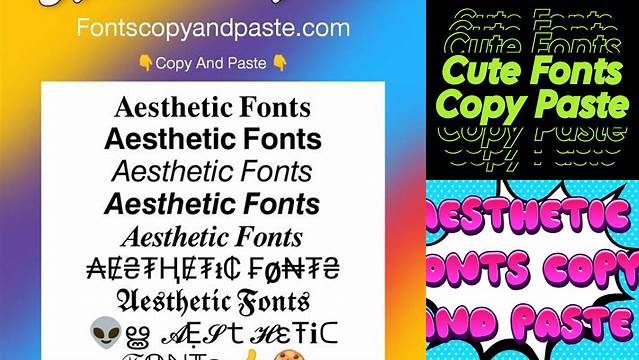
Cute Aesthetic Fonts: Copy & Paste With Color!
Hey guys! Ever wanted to spice up your social media, website, or just your notes with some super cute aesthetic fonts? You're in the right place! We’re diving deep into the world of adorable fonts that you can easily copy and paste, and yes, even add some color to the mix. Whether you’re aiming for a playful vibe, a dreamy aesthetic, or something totally unique, we've got you covered. Let’s get started and transform your text into a work of art!
1. Understanding Cute Aesthetic Fonts
So, what exactly makes a font cute and aesthetic? It’s all about the visual appeal and the emotional response it evokes. Cute aesthetic fonts often feature rounded edges, playful curves, and a whimsical feel. Think about fonts that make you smile – the ones that seem to bounce off the page with energy and charm. These fonts aren't just about readability; they're about personality and adding a touch of magic to your words. When selecting cute aesthetic fonts copy and paste, it's essential to consider the overall message you want to convey. Are you aiming for a lighthearted and fun tone, or something more gentle and dreamy? The font choice can significantly impact how your message is received, making it a crucial element of your design. Remember, the right font can transform a simple text into a captivating visual experience, drawing readers in and keeping them engaged. Experiment with different styles and combinations to find the perfect match for your project, and don't be afraid to step outside the box and try something new. After all, the world of cute aesthetic fonts is vast and exciting, offering endless possibilities for creative expression.
2. Where to Find Cute Fonts for Copy and Paste
Finding cute fonts for copy and paste is easier than you might think! The internet is brimming with resources that offer a wide variety of stylish and adorable fonts. One of the best places to start is websites that specialize in font generators. These platforms allow you to type in your text, preview it in various fonts, and then simply copy and paste the result. Some popular websites for this include LingoJam, CoolSymbol, and FontGet. These sites often have a user-friendly interface, making it simple to browse through different styles and find the perfect fit for your needs. Another great option is to explore social media platforms like Instagram and Pinterest. Many creators and designers share their favorite font combinations and resources on these platforms, providing you with inspiration and links to helpful tools. Additionally, don't underestimate the power of a simple Google search. By searching for terms like "cute aesthetic fonts copy and paste" or "stylish font generator," you can uncover a wealth of websites and resources that you might not have found otherwise. Remember to check the terms of use for any font you find, especially if you plan to use it for commercial purposes. Some fonts are free for personal use but require a license for business applications. With a bit of exploration, you'll discover a treasure trove of cute fonts that you can easily integrate into your projects, adding a touch of personality and flair to your text.
3. Using Font Generators for Aesthetic Text
Font generators are a total game-changer when it comes to creating aesthetic text effortlessly. These online tools offer a simple and effective way to transform ordinary text into something visually stunning. How do they work? Typically, you just type your desired text into the generator, and it instantly displays a variety of font options for you to choose from. This makes it incredibly easy to preview your text in different styles and find the one that perfectly matches your vision. Font generators are especially useful for creating eye-catching content for social media, websites, or even personalized messages. They eliminate the need to download and install fonts, which can be a time-consuming process. Instead, you can simply copy and paste the generated text directly into your desired platform or application. Many font generators also offer additional customization options, such as adjusting the size, color, and spacing of the text. This allows you to fine-tune your design and create a truly unique look. Some generators even include special characters and symbols that you can add to your text, further enhancing its aesthetic appeal. When using font generators, it's essential to experiment with different styles and options to discover the perfect combination for your project. Don't be afraid to try something new and push the boundaries of your creativity. With the help of these tools, you can effortlessly create cute aesthetic text that stands out and captures attention.
4. Copy and Paste Font Styles: A Quick Guide
The beauty of copy and paste font styles lies in their simplicity and convenience. It’s a quick and easy way to add a touch of personality to your text without the hassle of downloading or installing anything. The process is straightforward: first, you find a font style you love, often using a font generator or a website that offers pre-designed text. Once you've found the perfect font, you simply select the text and copy it using your computer's keyboard shortcuts (Ctrl+C or Cmd+C) or by right-clicking and choosing "Copy." Then, you navigate to the place where you want to use the text and paste it (Ctrl+V or Cmd+V, or right-click and choose "Paste"). It's that easy! This method works seamlessly across various platforms and applications, including social media, messaging apps, documents, and websites. However, it's important to note that copy and paste fonts often rely on Unicode characters, which means they might not be universally supported by all devices and platforms. While the majority of modern devices and browsers can display these fonts correctly, there might be some instances where the text appears as a default font or as a series of squares or symbols. To ensure your cute font displays correctly for everyone, it's a good idea to test it on different devices and platforms. Despite this potential limitation, copy and paste font styles remain a popular and convenient way to add aesthetic flair to your text, allowing you to express your creativity with ease.
5. Adding Color to Your Aesthetic Fonts
Adding color to your aesthetic fonts takes them to a whole new level of visual appeal. While copy and paste fonts primarily focus on stylistic changes, incorporating color can make your text even more eye-catching and expressive. There are a few ways to achieve this, depending on where you're using the text. For social media platforms like Instagram and Facebook, you might not be able to directly change the color of copied and pasted text within the post itself. However, you can often use image editing apps or design tools to create graphics with colorful text, which you can then share as images. Apps like Canva, Adobe Spark, and PicsArt offer a wide range of design templates and color options, making it easy to create stunning visuals with your cute aesthetic fonts. For websites and blogs, you typically have more control over text formatting. If you're using a content management system like WordPress, you can often use the built-in editor or a page builder plugin to change the color of your text. HTML and CSS also provide powerful tools for styling text, allowing you to specify colors using hexadecimal codes, RGB values, or color names. When choosing colors for your aesthetic fonts, consider the overall theme and mood of your design. Pastel colors often evoke a soft and dreamy feel, while bright and bold colors can add a playful and energetic vibe. Experiment with different color combinations to find what works best for your project, and don't be afraid to get creative! By adding color to your cute fonts, you can create text that truly stands out and captures attention.